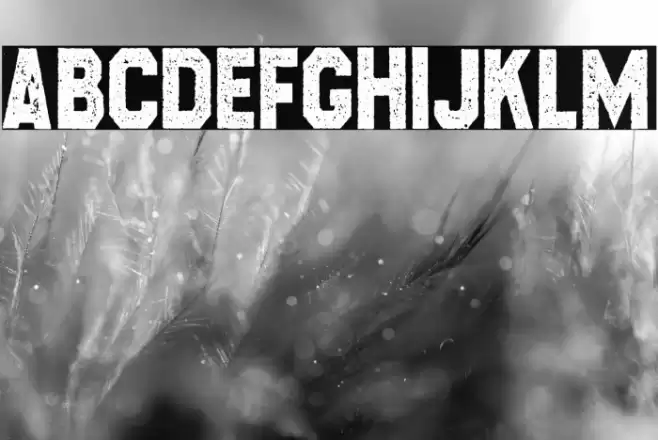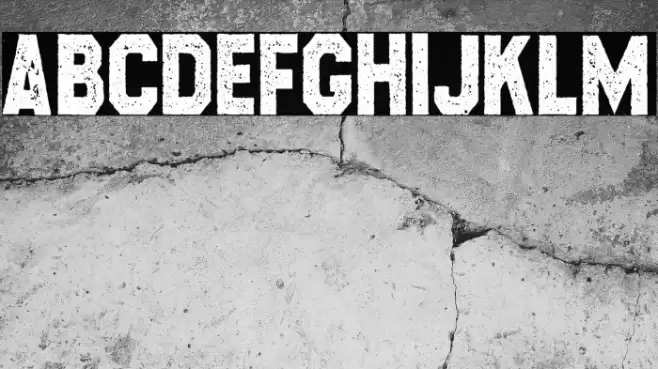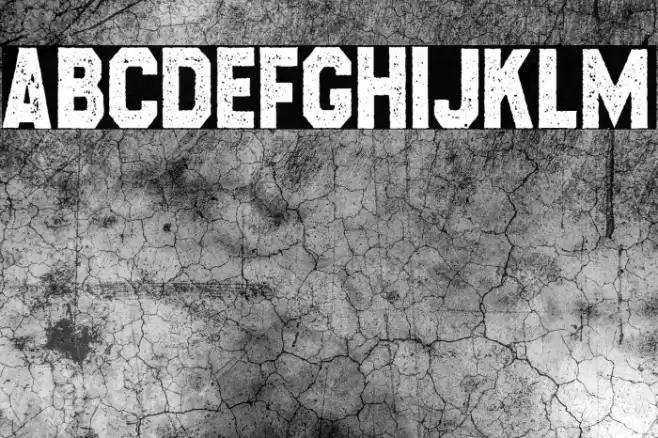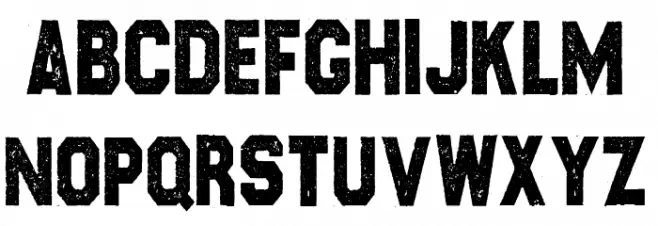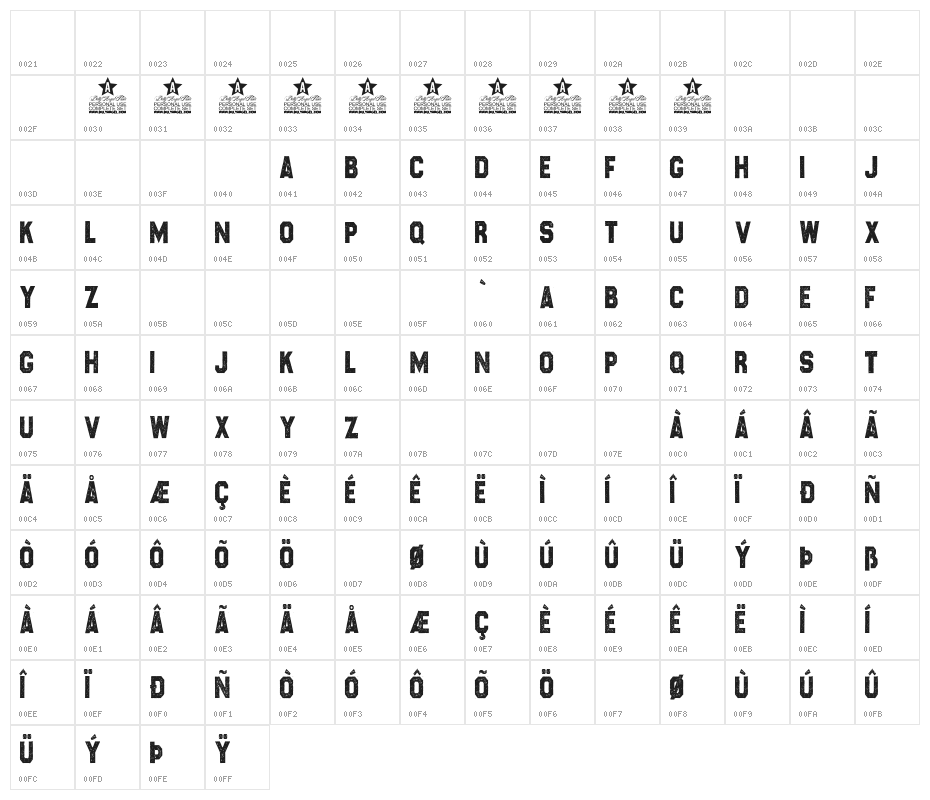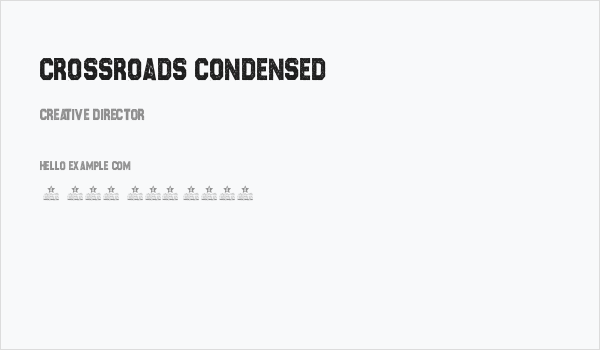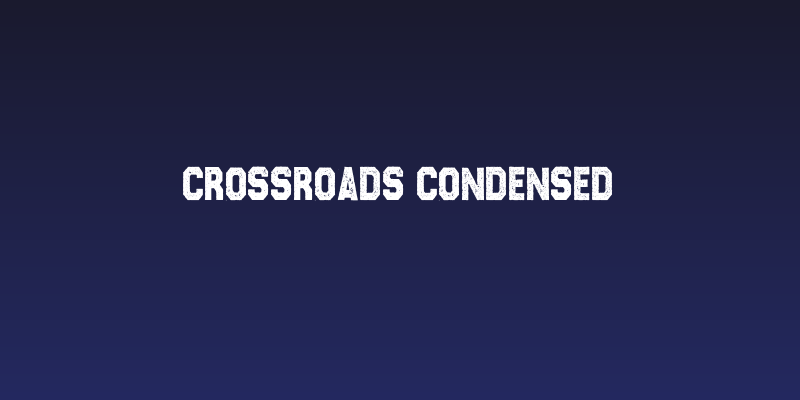
CROSSROADS CONDENSED Font
CROSSROADS CONDENSED Description
This font features a bold, condensed style with a distressed, textured appearance that gives it a rugged and vintage feel. The uppercase letters are uniformly designed with sharp, angular edges, creating a strong and impactful visual presence. The texture within each character adds a sense of depth and character, making it ideal for designs that require a touch of grit and authenticity. The font's condensed nature allows for efficient use of space, making it suitable for headlines and titles where impact is essential.
A bold, condensed font with a distressed, vintage texture from Uncategorized fonts.
- Font: CROSSROADS CONDENSED
- Proposed Projects: Ideal for posters, album covers, branding projects, and any design requiring a vintage or rugged aesthetic.
- Overall Style: Vintage